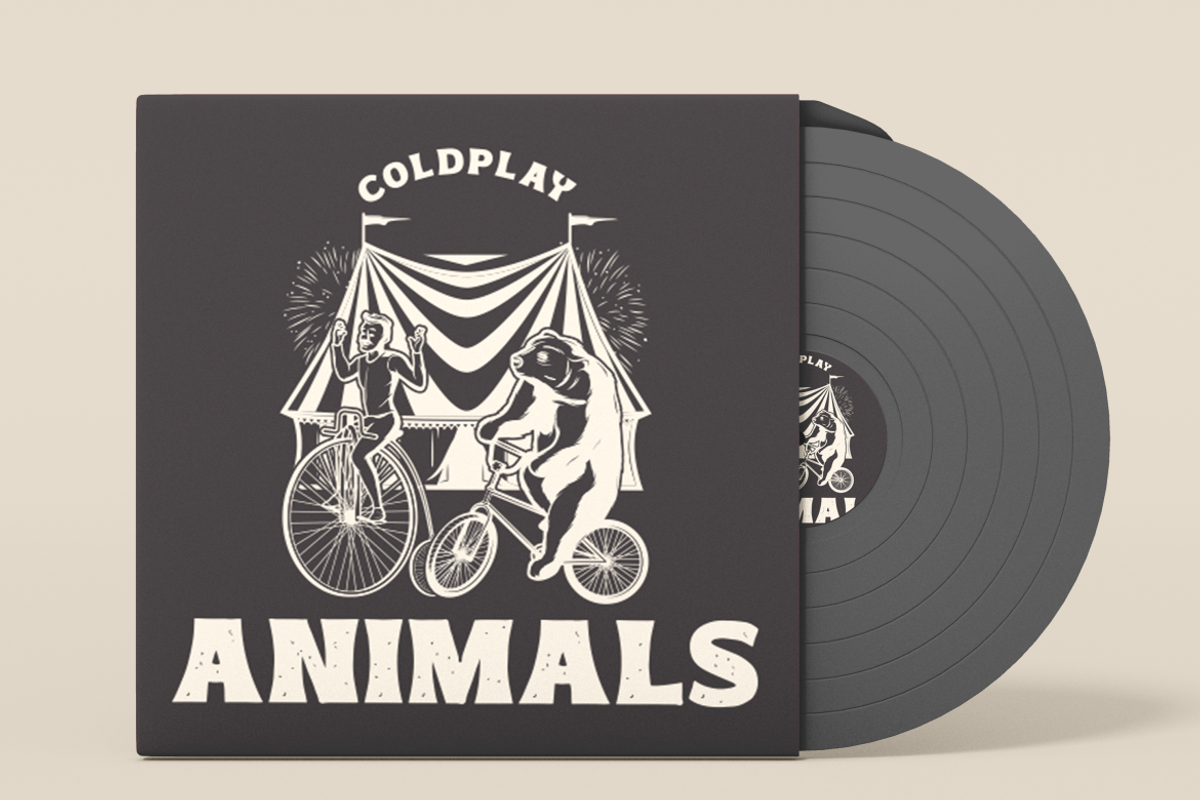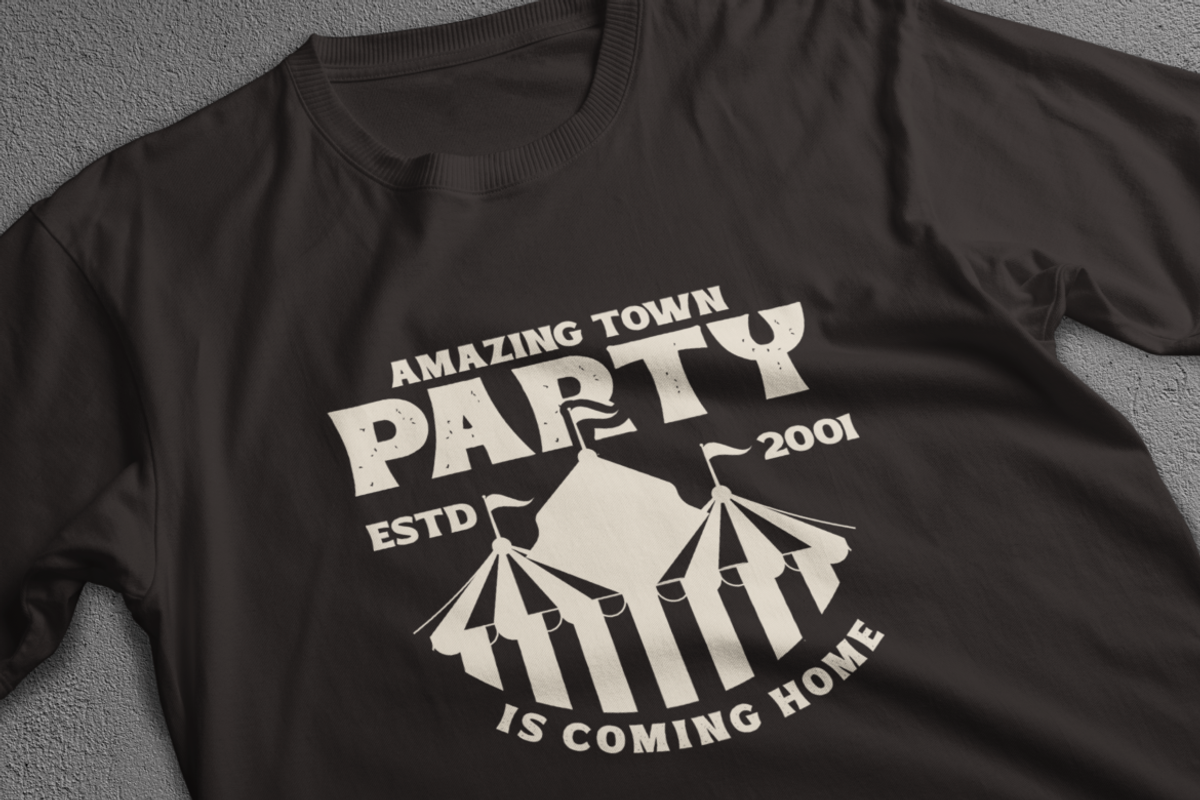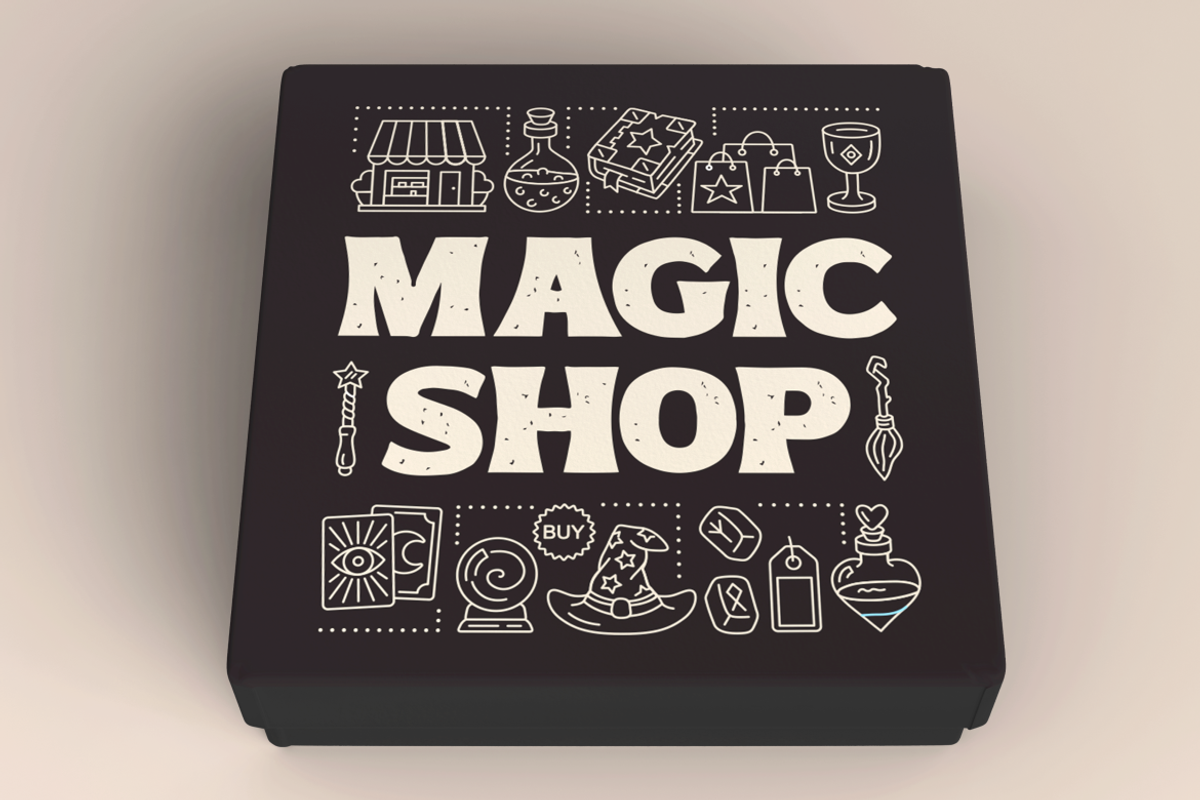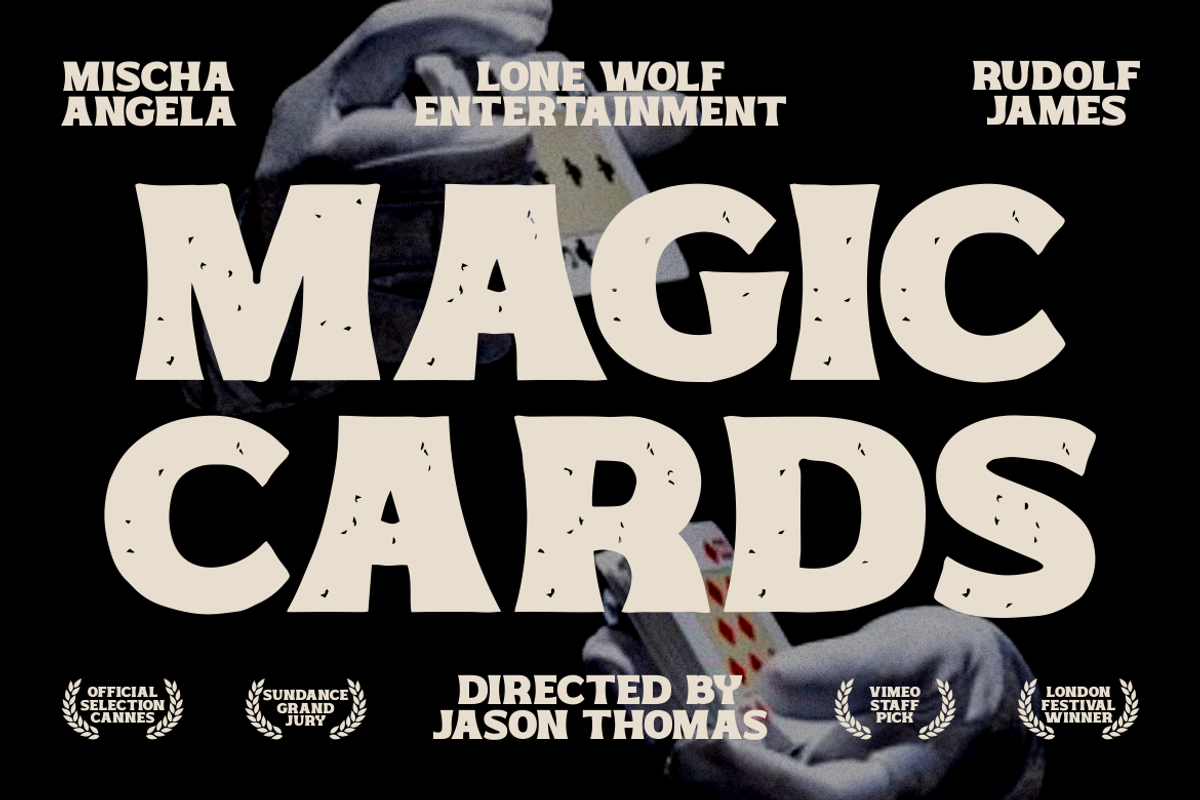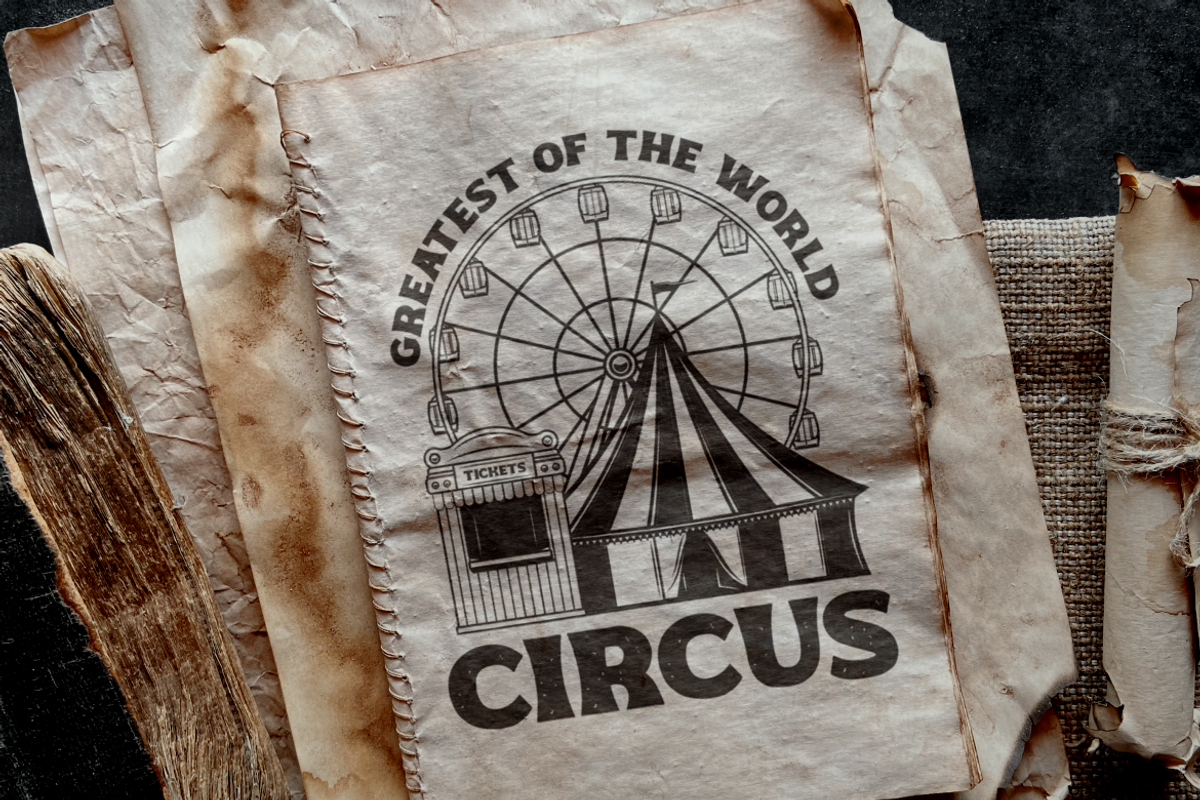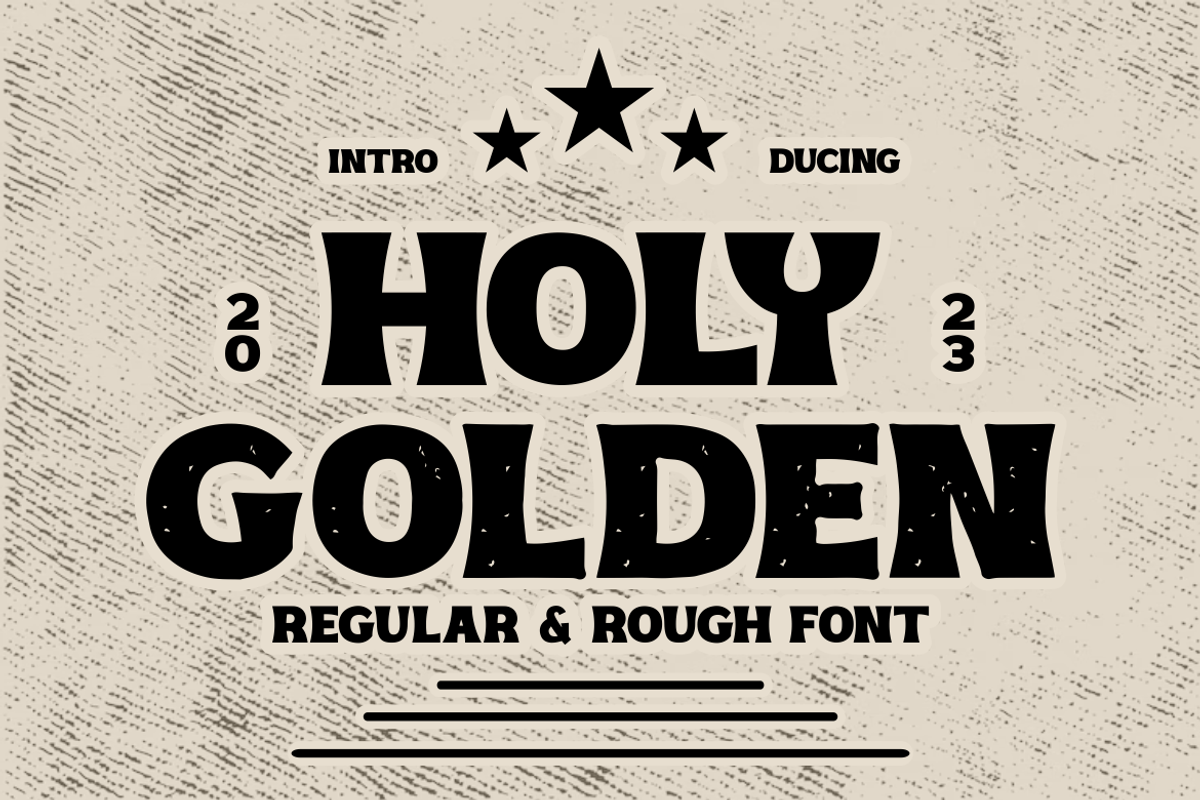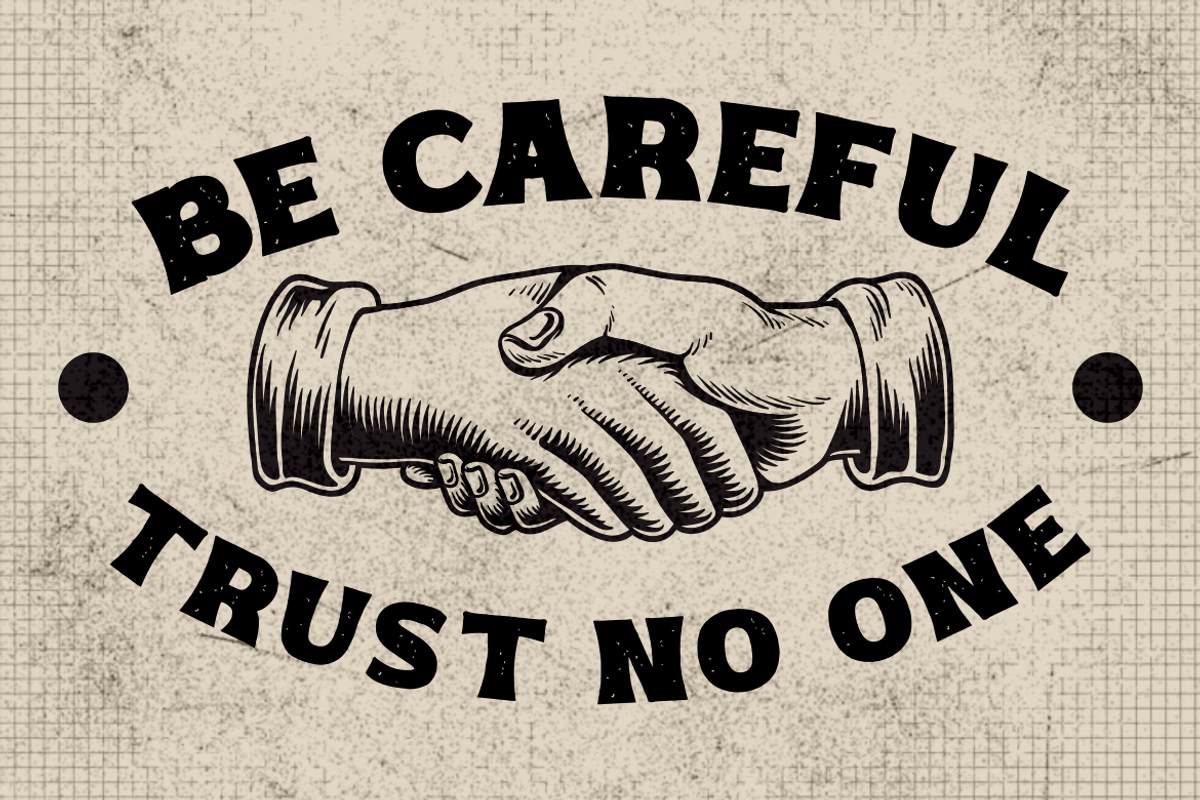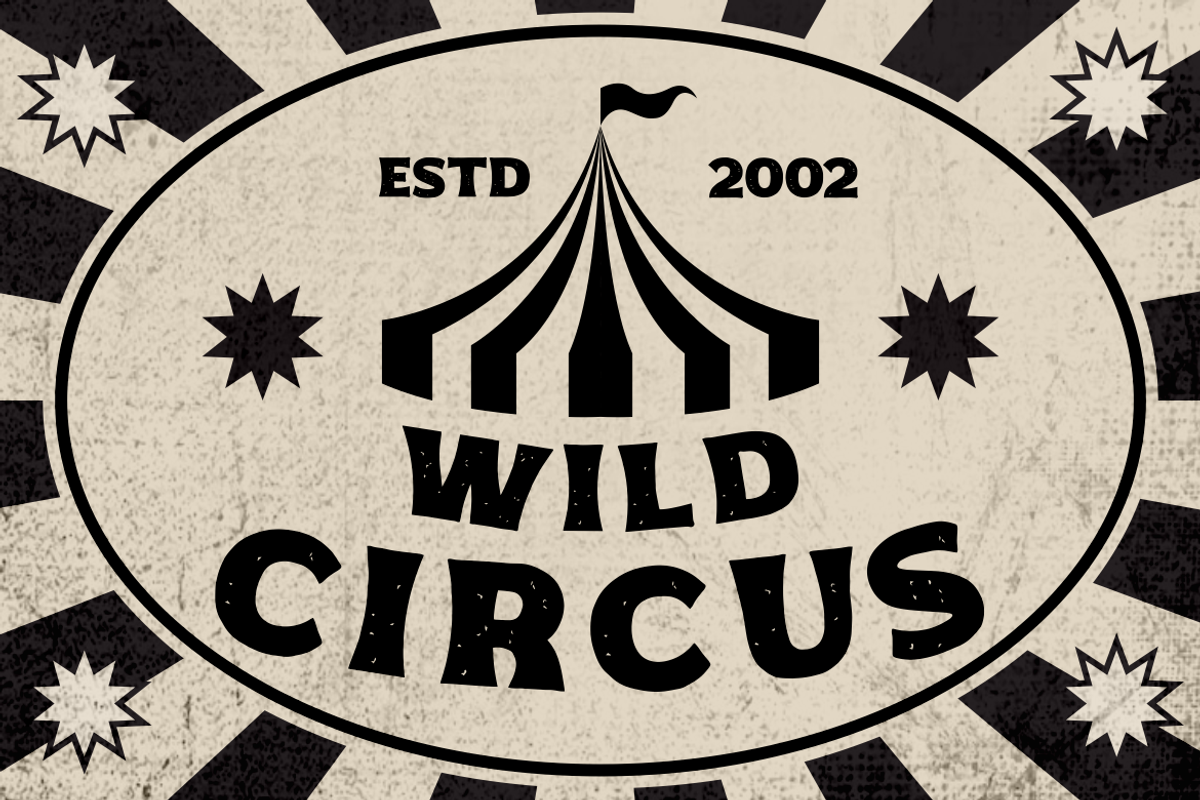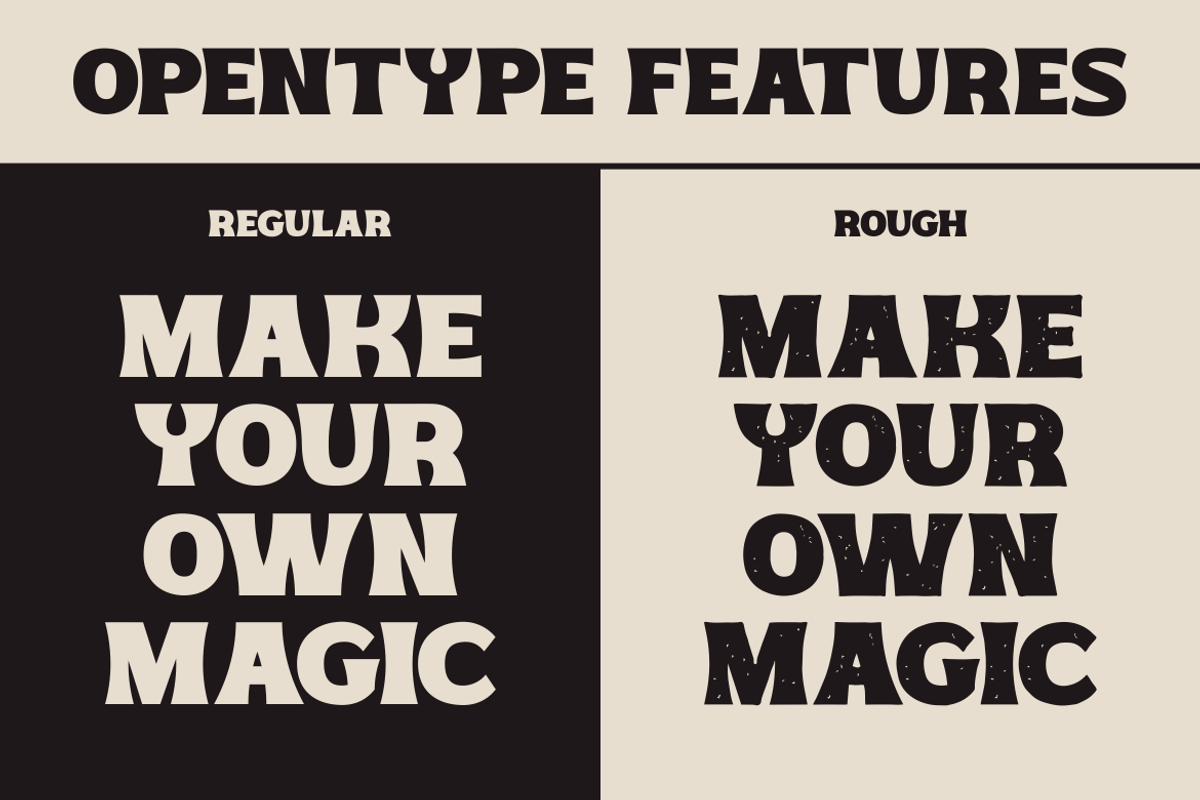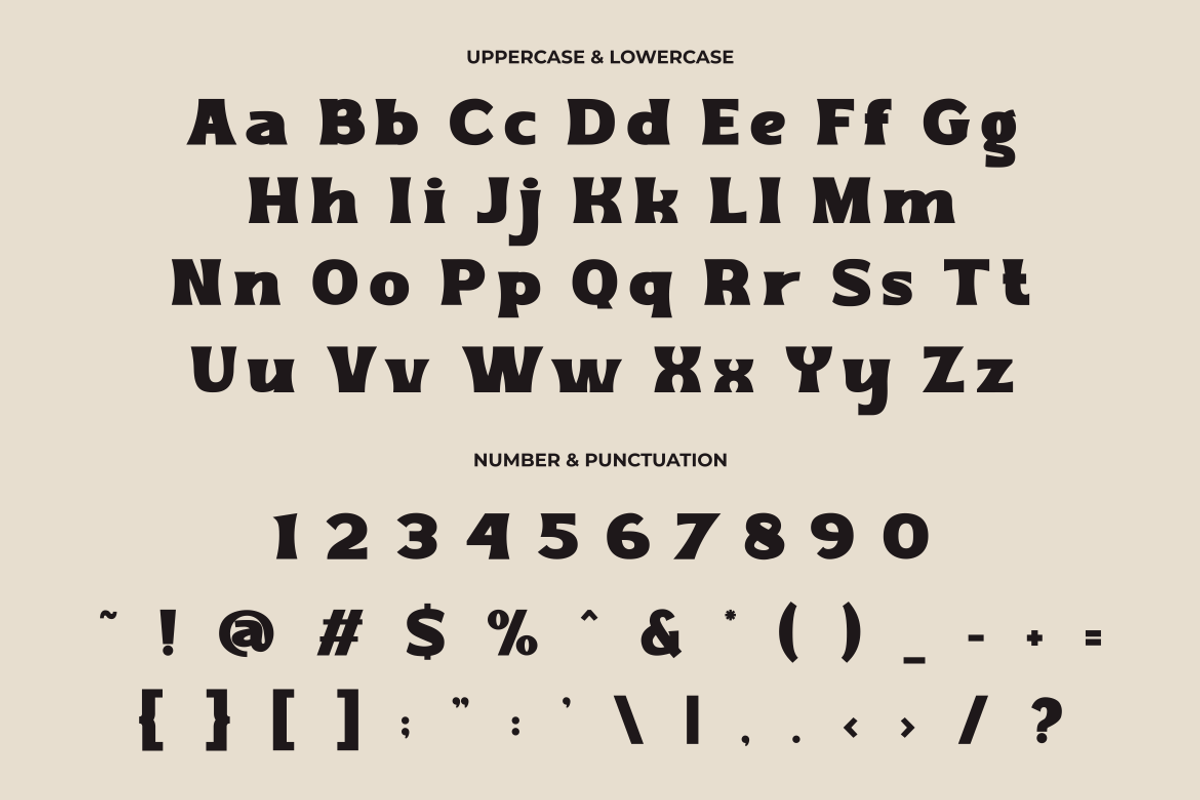
Holy Golden - Bold Retro And Classi
The Holy Golden - Bold Retro And Classic Font is a robust typeface that effortlessly blends retro charm with classic elegance. It offers two versions to choose from: a clean version and a rough, textured variant. With its nostalgic and classic aesthetic, this font brings out the vintage vibes in any design. Perfect for use in logos, posters, stickers, business names or branding, titles, headlines, business cards, and quotes, Holy Golden adds a touch of timeless appeal to your creative projects.